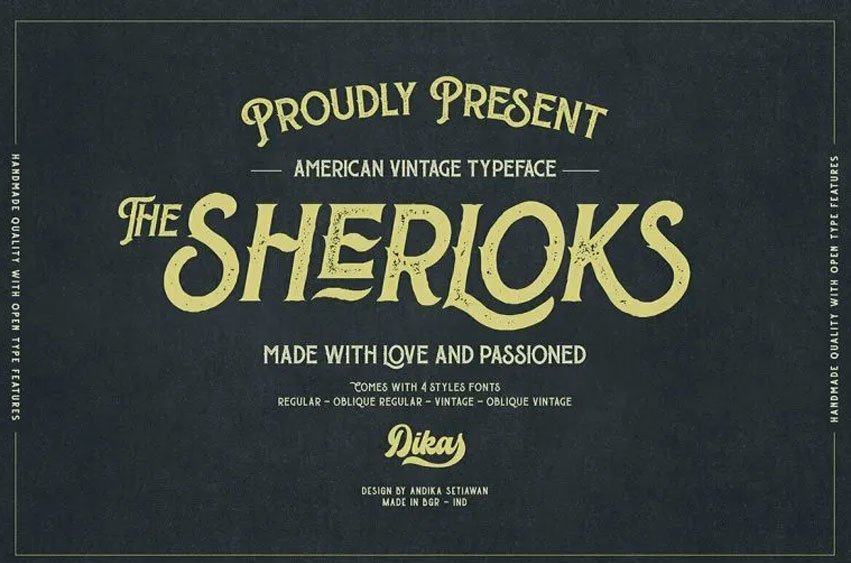
The Sherloks Font
The Sherloks Font Serif Vintage Typography contains four varieties of the font that are regular, oblique, regular vintage, and oblique vintage with handwritten characters and Open Type.
It is perfect for generating retro styles for logos, product packaging, invitations, quotes, and T-shirt labels and so on.